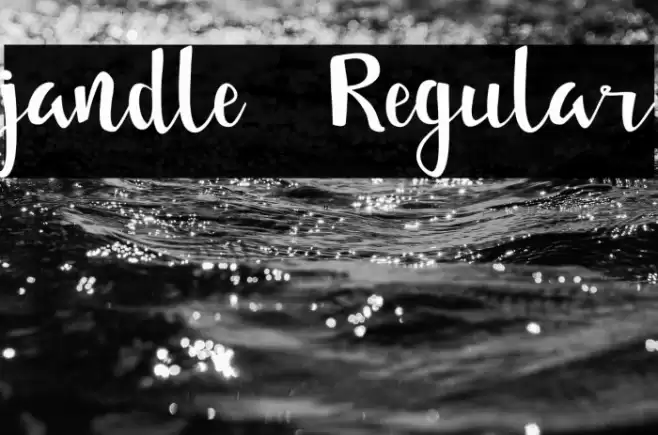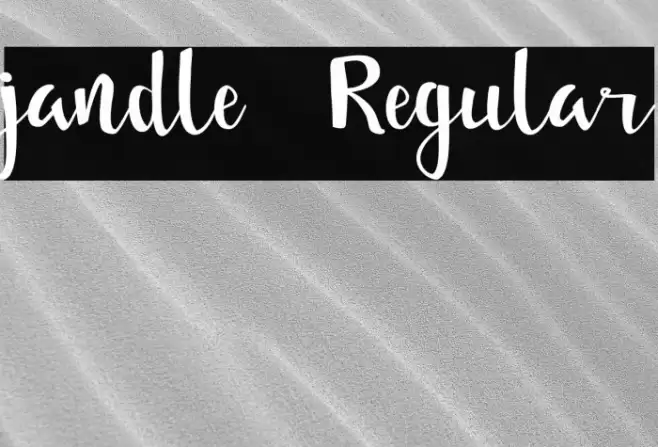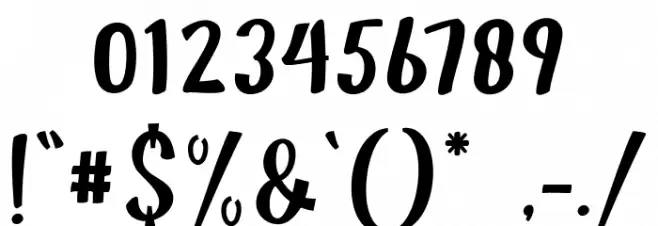
jandle Regular Font
jandle Regular Description
This font exhibits a playful and artistic style, characterized by its bold and flowing script. The uppercase letters are distinct with a slight slant, giving them a dynamic appearance. The lowercase letters are more fluid, with elegant curves and loops that add a touch of whimsy. The numbers are bold and clear, maintaining the playful essence of the font. Special characters are creatively designed, fitting seamlessly with the overall aesthetic. This font's unique style makes it suitable for projects that require a personal and artistic touch.
A bold, playful script font with dynamic and artistic characters from Regular fonts.
- Proposed Projects: Ideal for greeting cards, invitations, branding projects, and creative posters.
- Use Case: Logos, Headlines, Creative projects